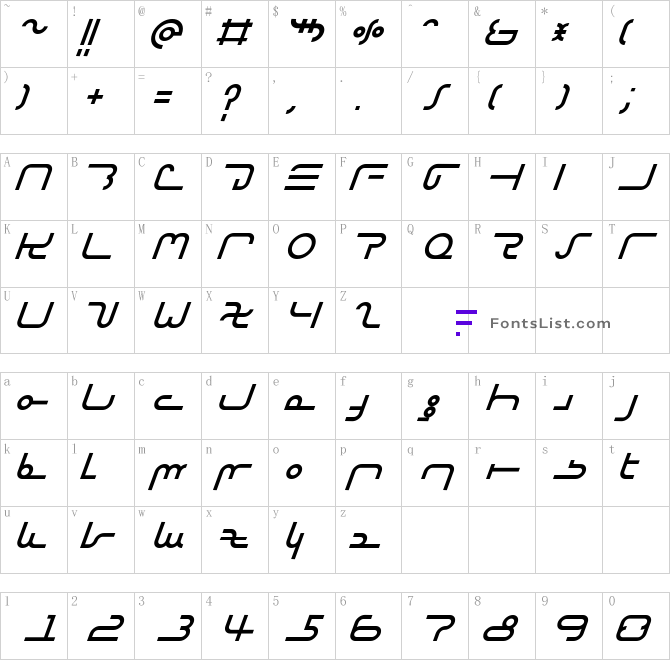
- Font Name:ArabiaConsole
ArabiaConsole.ttf is a very beautiful artistic font, ArabiaConsole.ttf is widely used in the design and printing of various books and pictures,ArabiaConsole.ttf has a strong visual impact,ArabiaConsole.ttf is a commonly used font in newspapers, magazines and books, and is used in posters, e-commerce Poster design, store design, logo design, font design and other fields.ArabiaConsole.